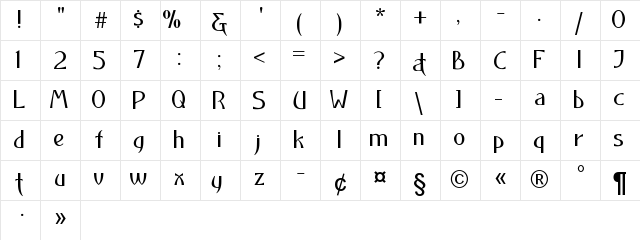
Neocyr Regular Free Font
Neocyr Regular
Design Context for Neocyr
Neocyr is a composed and adaptable typeface that performs quietly and consistently across a wide range of design contexts.